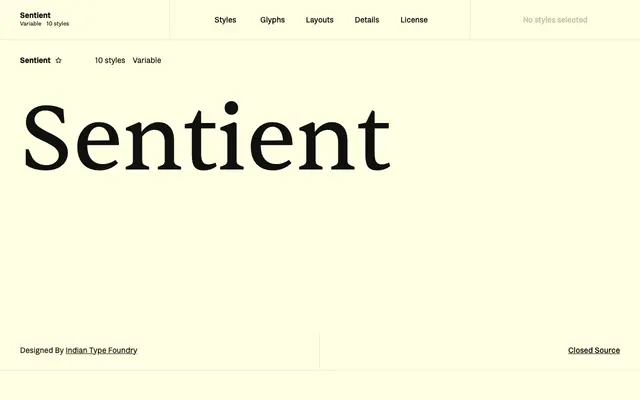
Sentient
A wide-proportioned text serif from Indian Type Foundry, built for long-form reading with sturdy capitals, large counterforms and a full set of OpenType alternates.
Designed for immersive reading, its slightly wide glyph proportions give it a visual solidity that holds up under poor printing conditions and on screen alike. The italic cuts offer distinctive touches including a closed-bowl 'g', an alternate ampersand form and 14 f-ligatures, with additional stylistic sets covering a straight-sided 'M' and a long-tailed 'Q'. Available in five weights with italics and variable font support, it covers 135 languages across the Latin script.
Classified as a serif by the foundry and designed for immersive reading; its wide proportions, large counterforms and strong capitals place it firmly in the text serif category with some display capability.